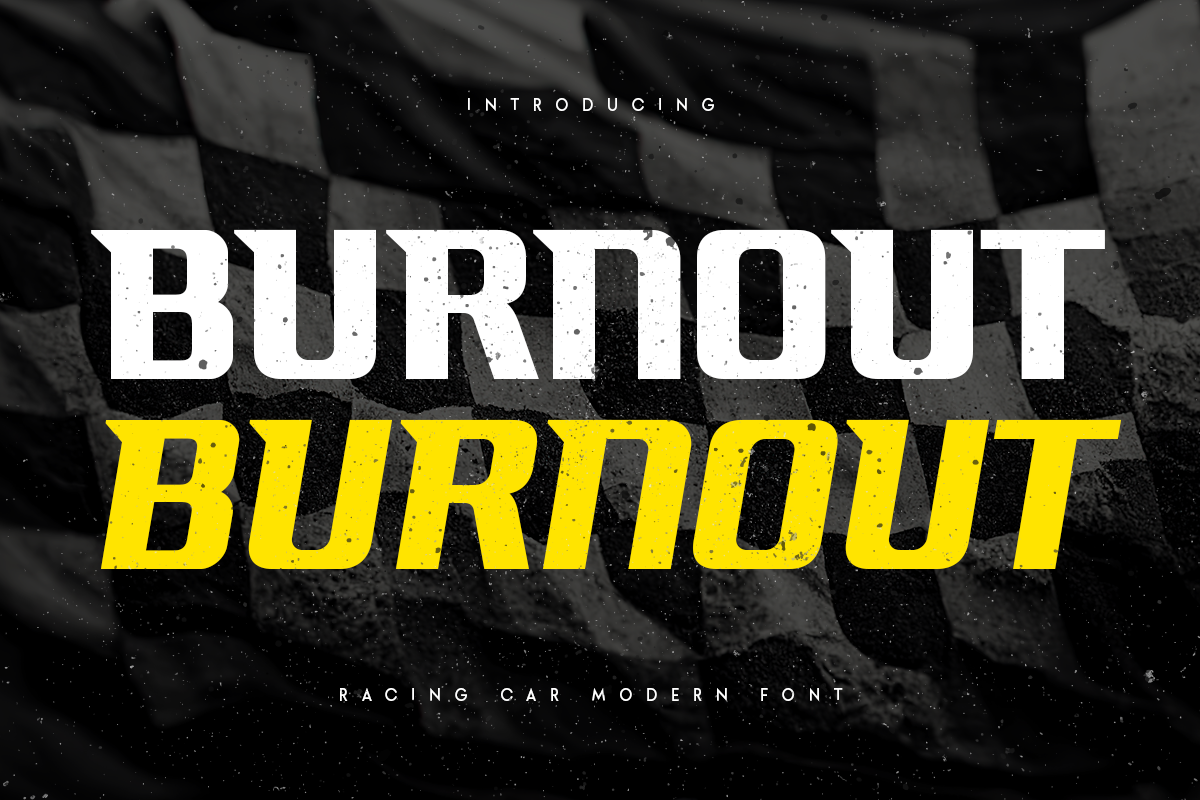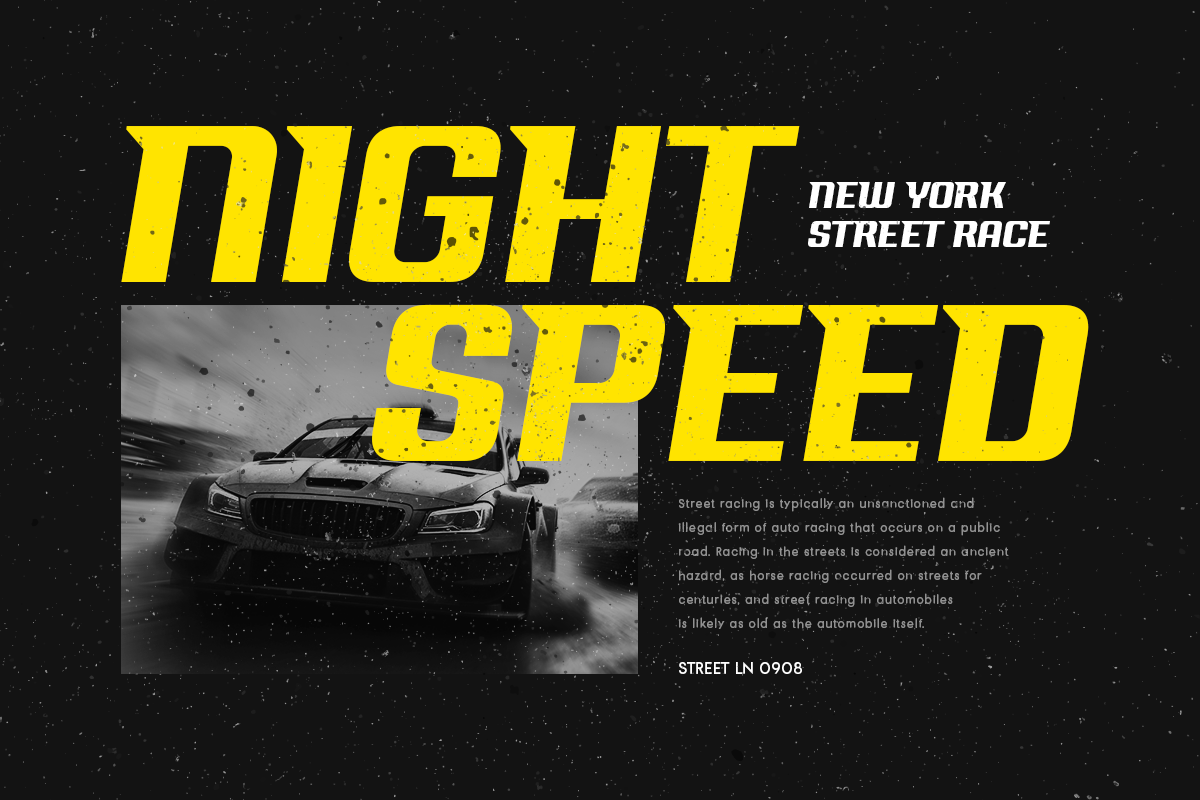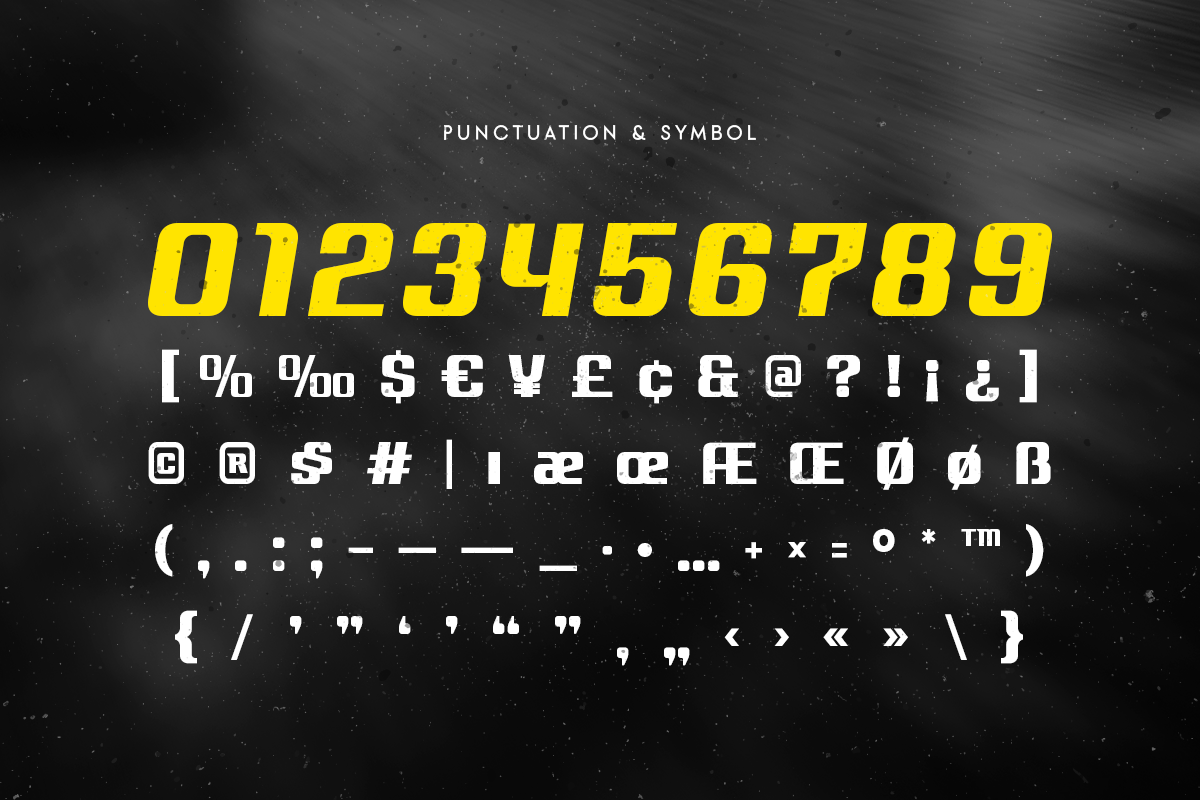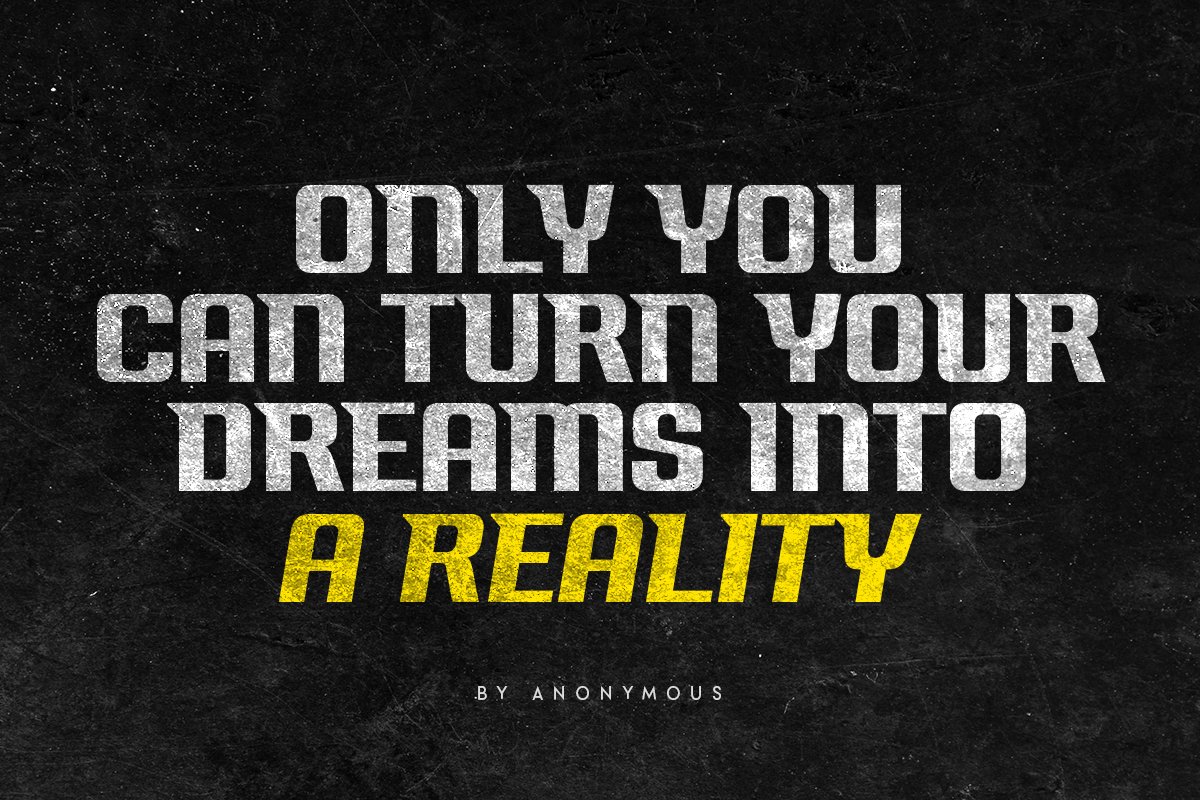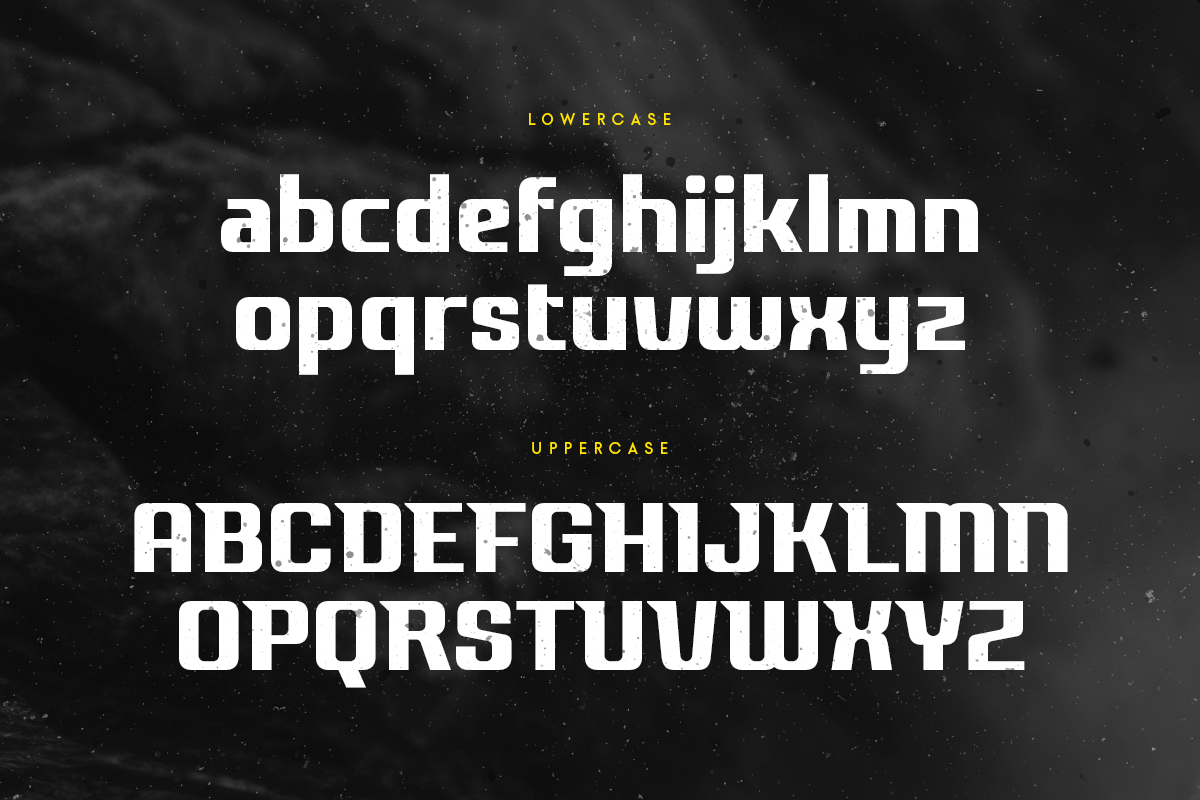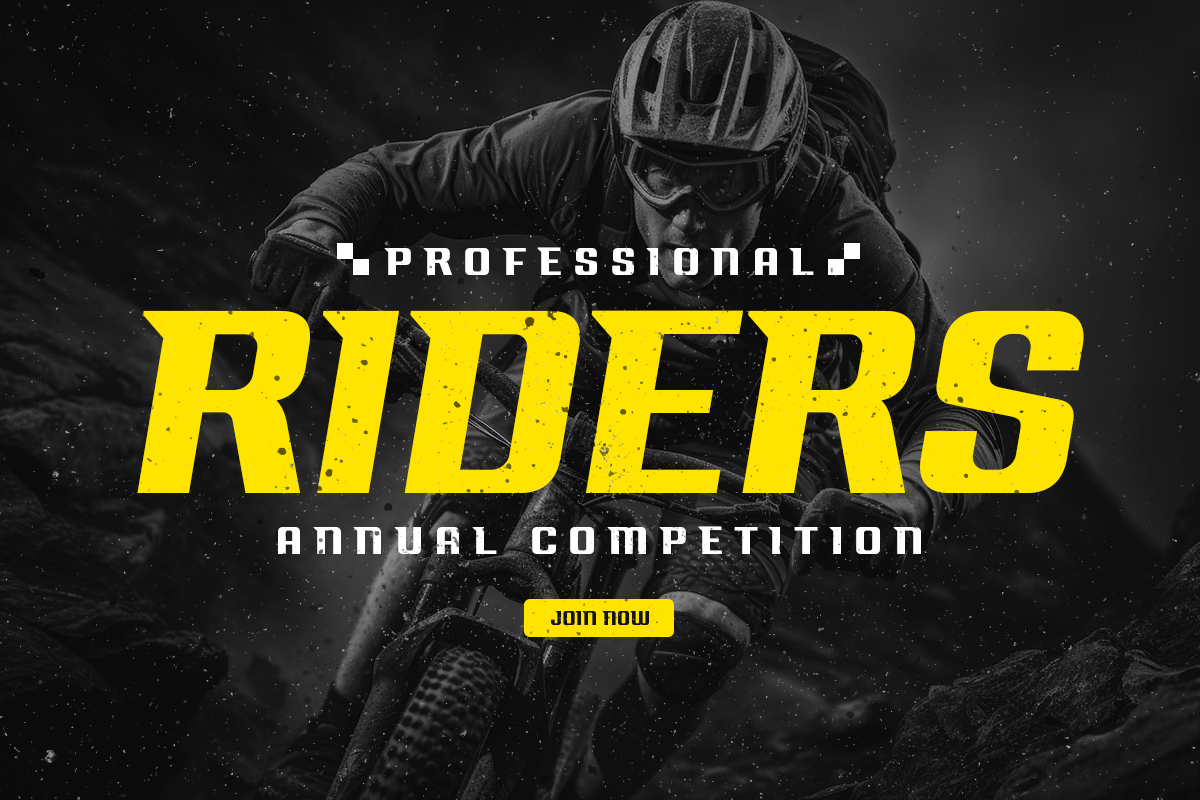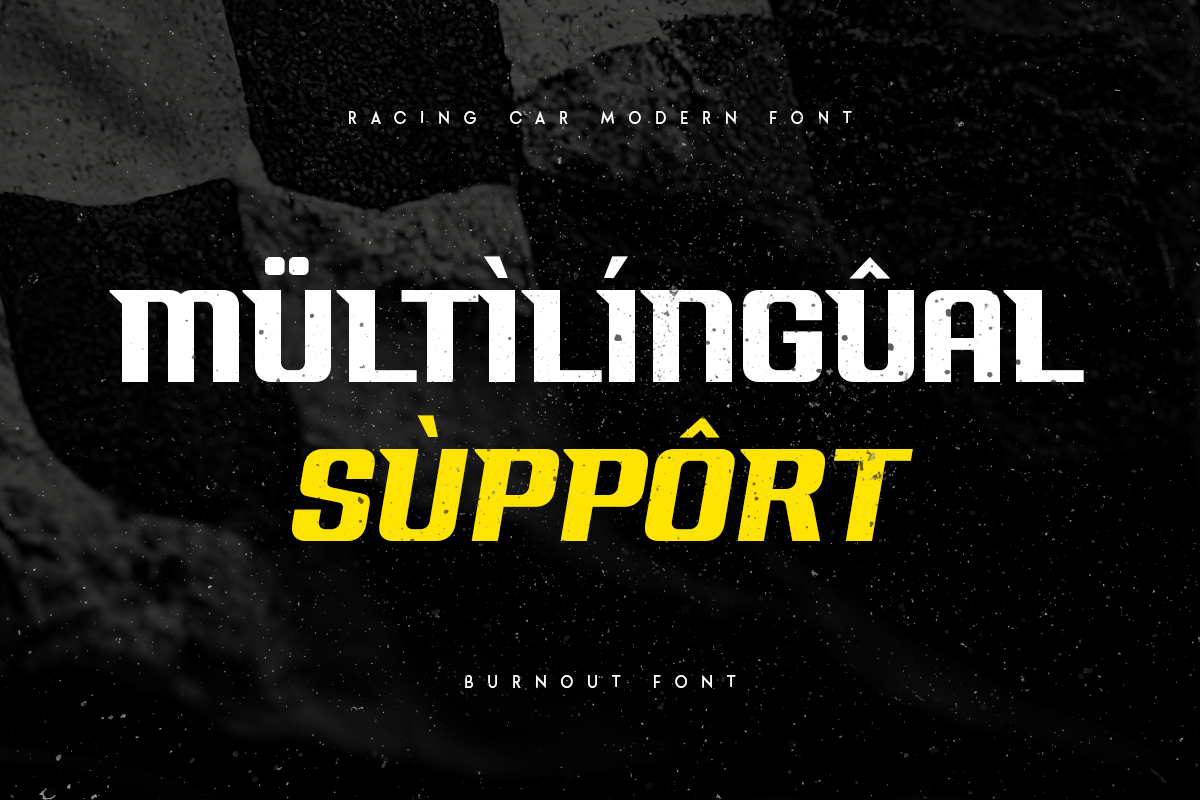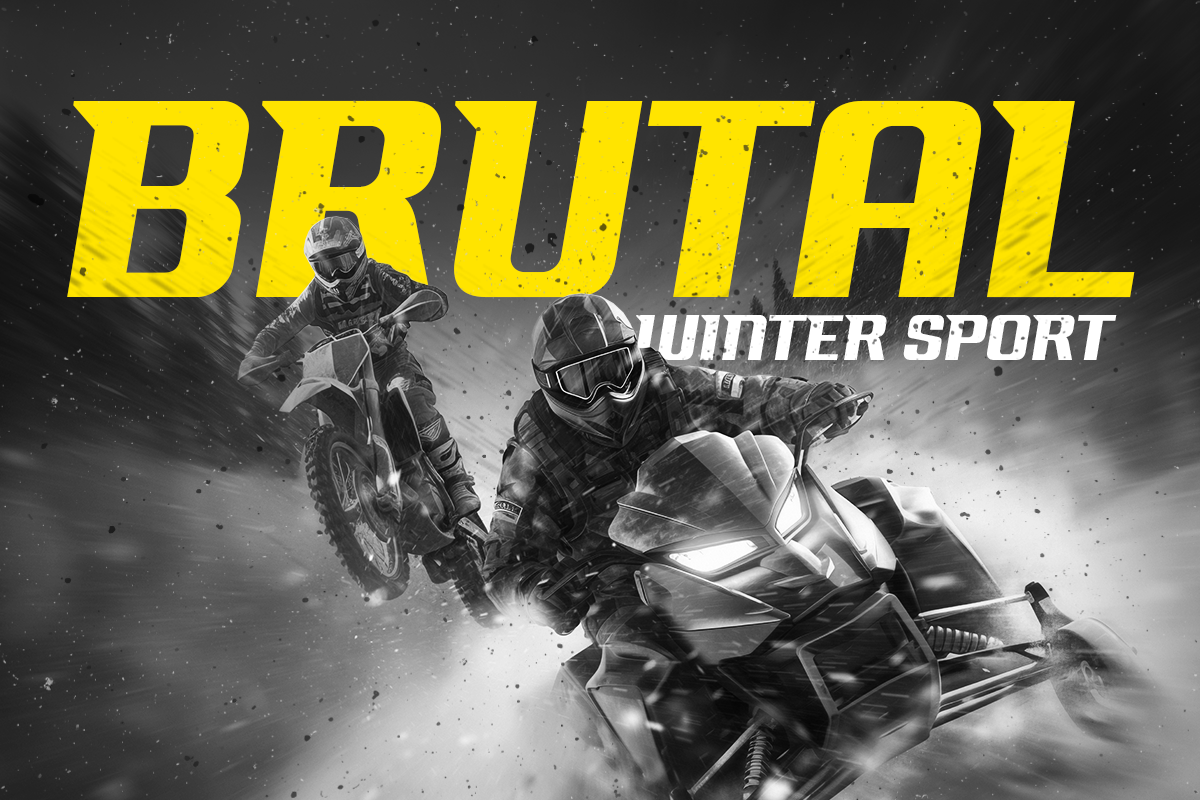
Burnout - Racing Car Modern Font
Burnout, a Racing Car Modern Font that created special for Branding, Title and more stand out typography for sport and action. It's so perfect to add your style and headline overview for sport, technology, actions, and fighting theme. And specially for this font, we crafted for bold action style and modern feels so enjoy to create any project that will show your main idea out.
- Regular & Italic characters prepared to get best results
- Ready Uppercase and Lowercase characters